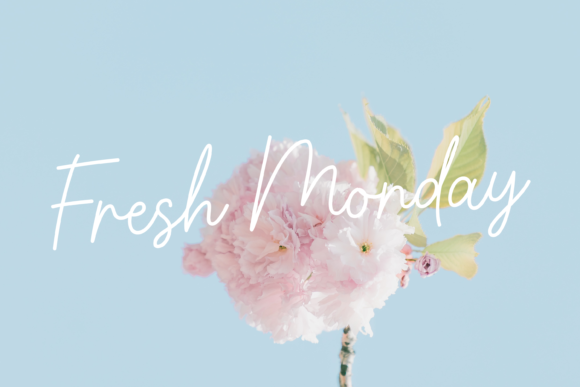
About Payah Font
Payah is a stylish and incredibly elegant script font. It looks stunning on wedding invitations, thank you cards, quotes, greeting cards, logos, business cards and every other design which needs a handwritten touch.